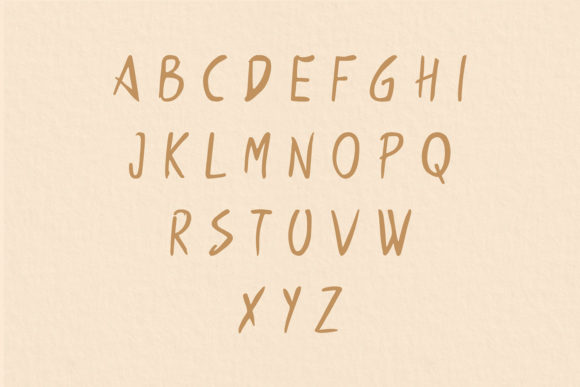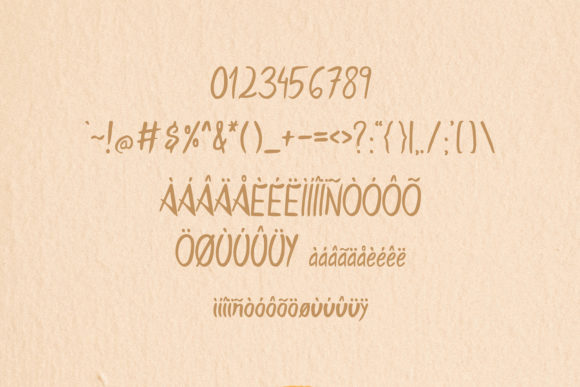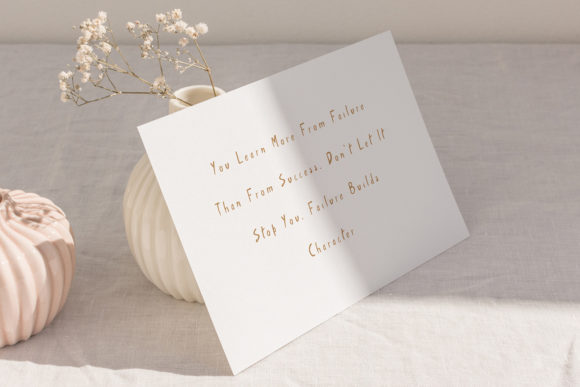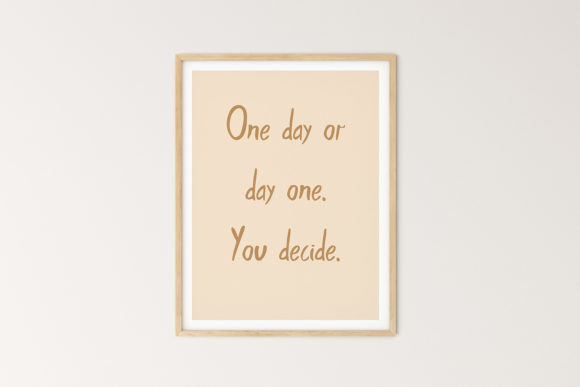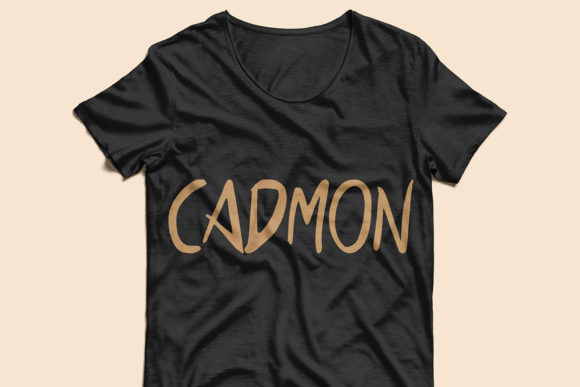
Cadmon Font: Elevate Your Designs with a Relaxed, Handwritten Touch
Are you tired of using the same old fonts in your designs? Look no further than Cadmon, a beautiful, brushed handwritten font that’s perfect for adding a personal touch to your creations. With its relaxed and simple style, Cadmon is an incredible asset to any font library, and can instantly elevate your designs to the next level.
The Characteristics of Cadmon Font
Cadmon is a unique and charming font that’s perfect for a wide range of design applications. Its key characteristics include:
• Relaxed and simple style: Cadmon has a laid-back, effortless vibe that’s perfect for creating designs that feel approachable and friendly.
• Brushed handwritten look: The font’s brushed texture gives it a beautifully organic, hand-crafted feel that’s perfect for adding a personal touch to your designs.
• Versatile: Whether you’re working on a logo, a poster, or a social media graphic, Cadmon is a versatile font that can adapt to any design style or topic.
Why Choose Cadmon Font?
So why should you choose Cadmon for your next design project? Here are just a few reasons:
• Add a personal touch: With Cadmon, you can add a personal, human touch to your designs that sets them apart from the competition.
• Perfect for creative projects: Whether you’re a designer, artist, or crafter, Cadmon is the perfect font for creative projects that require a unique and eye-catching style.
• Easily readable: Despite its handwritten style, Cadmon is incredibly easy to read, making it perfect for designs that require a clear and concise message.
How to Use Cadmon Font in Your Designs
Using Cadmon in your designs is easy! Here are a few tips to get you started:
• Pair it with bold fonts: For maximum impact, pair Cadmon with bold, sans-serif fonts to create a striking contrast.
• Use it for headings and titles: Cadmon is perfect for headings and titles, where its unique style can really shine.
• Add texture and depth: Experiment with different textures and colors to add depth and interest to your designs.
Cadmon Font in the World of Design
Cadmon is more than just a font – it’s a design statement. With its unique style and versatility, it’s perfect for designers and crafters who want to create designs that stand out from the crowd.
In the world of design, fonts like Cadmon are highly prized for their ability to add a personal touch to designs. Whether you’re working on a branding project, a social media campaign, or a craft project, Cadmon is the perfect choice.
Here are a few tips for designers and crafters who want to get the most out of Cadmon:
• Experiment with different colors: Try pairing Cadmon with different colors and textures to create unique and eye-catching designs.
• Don’t be afraid to mix and match: Combine Cadmon with other fonts and design elements to create a look that’s all your own.
• Pay attention to spacing and kerning: To get the most out of Cadmon, make sure to pay attention to spacing and kerning – it can make all the difference in the world.
In conclusion, Cadmon is a beautiful, brushed handwritten font that’s perfect for designers and crafters who want to add a personal touch to their designs. With its relaxed and simple style, Cadmon is an incredible asset to any font library, and can instantly elevate your designs to the next level. So why wait? Try Cadmon today and see the difference it can make in your designs!